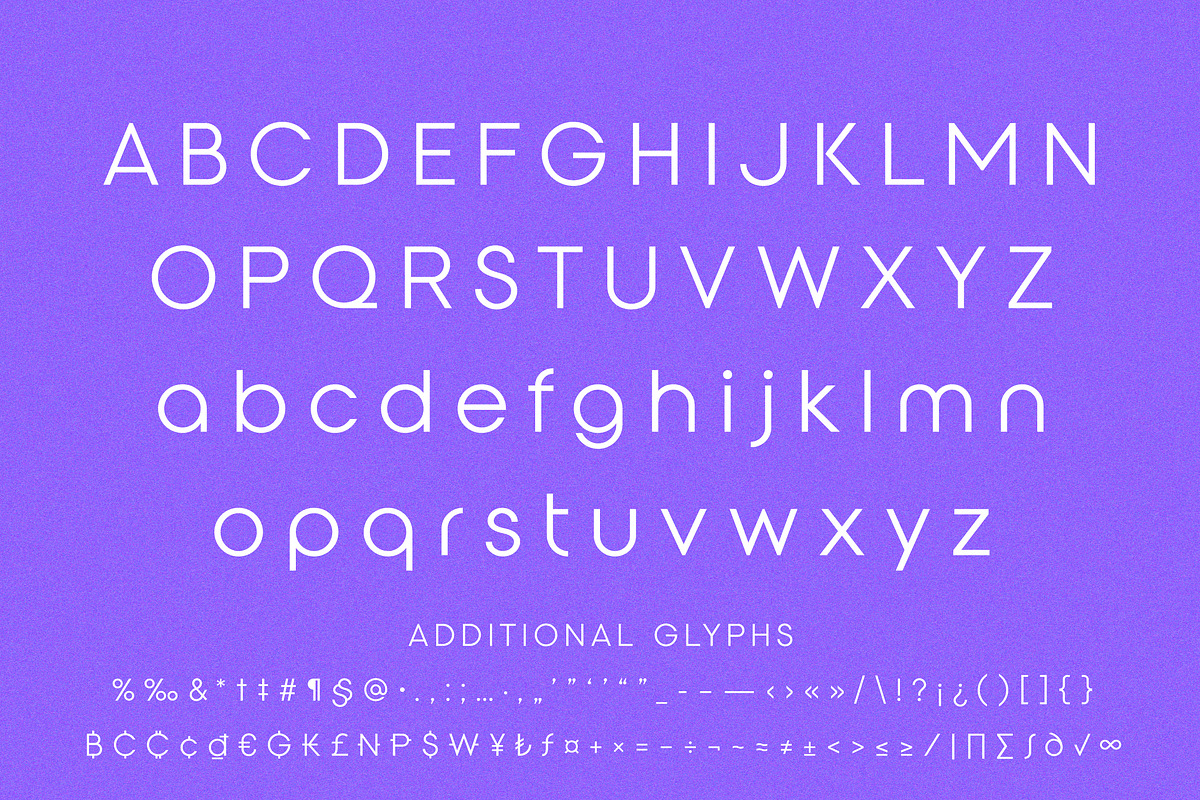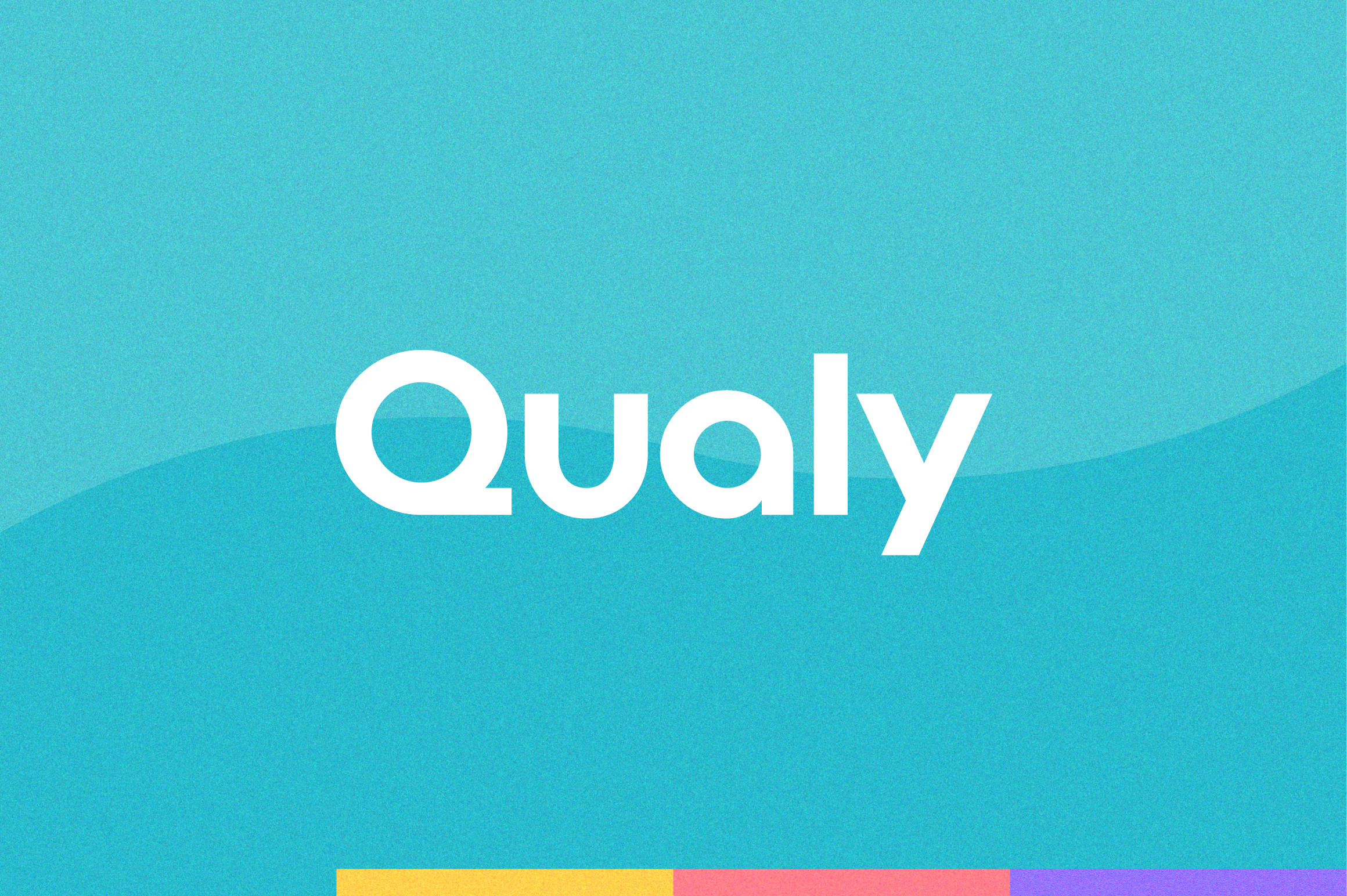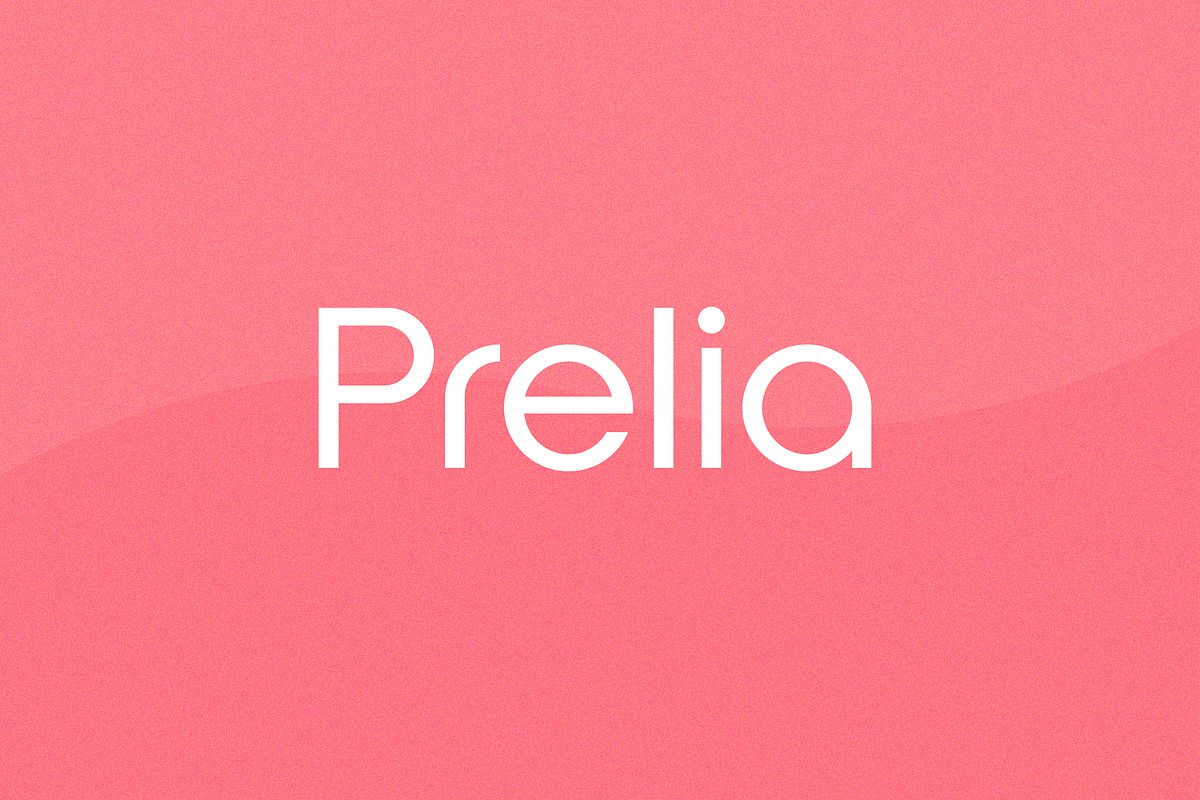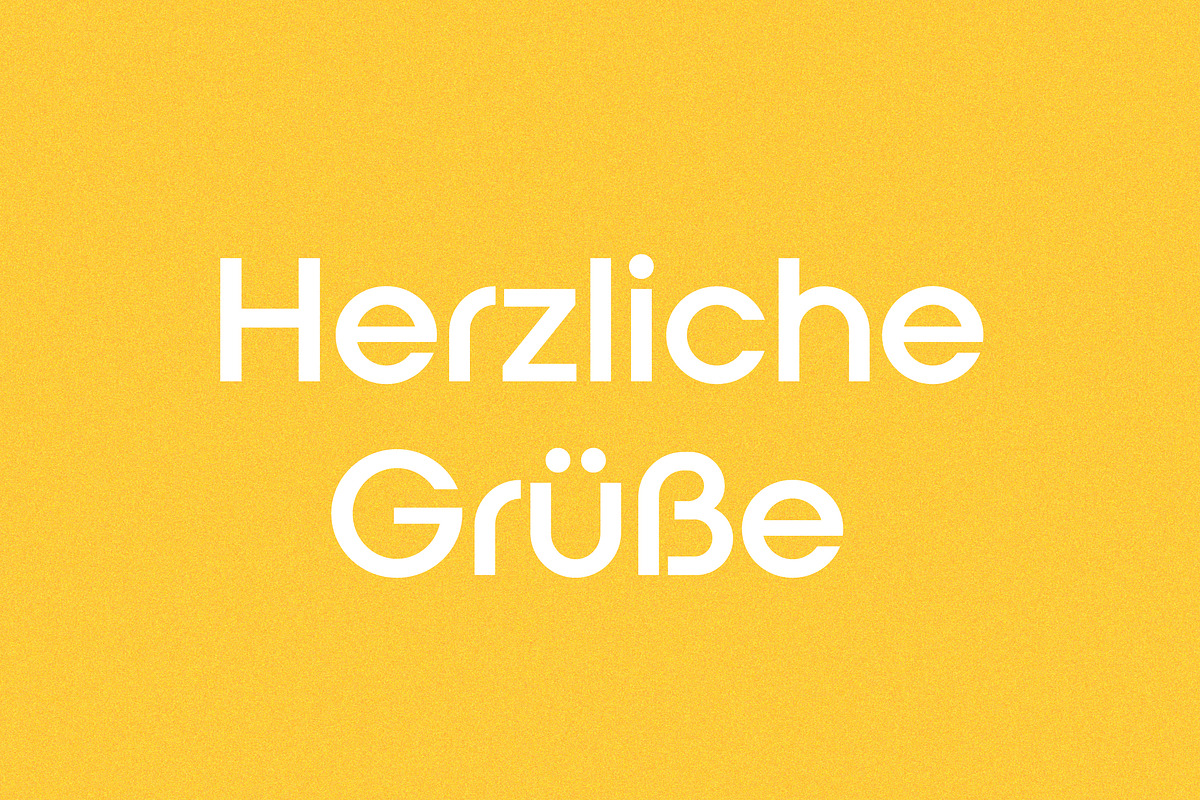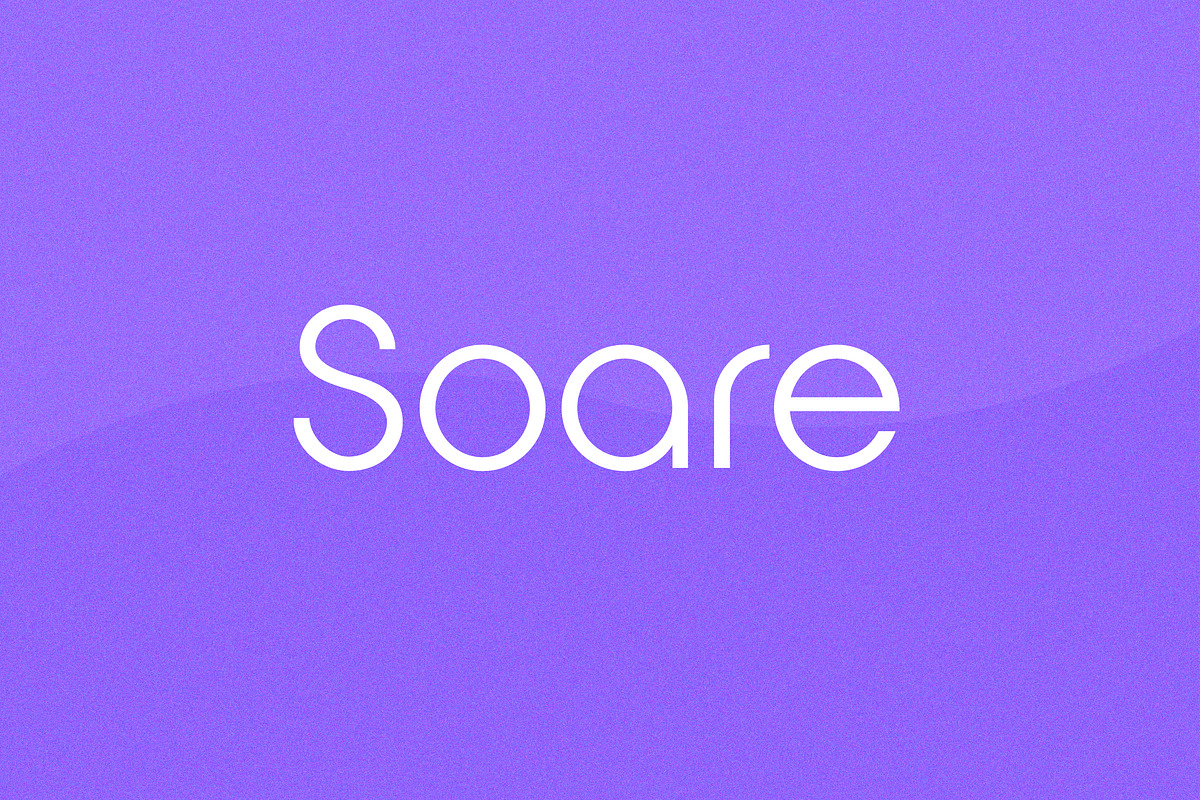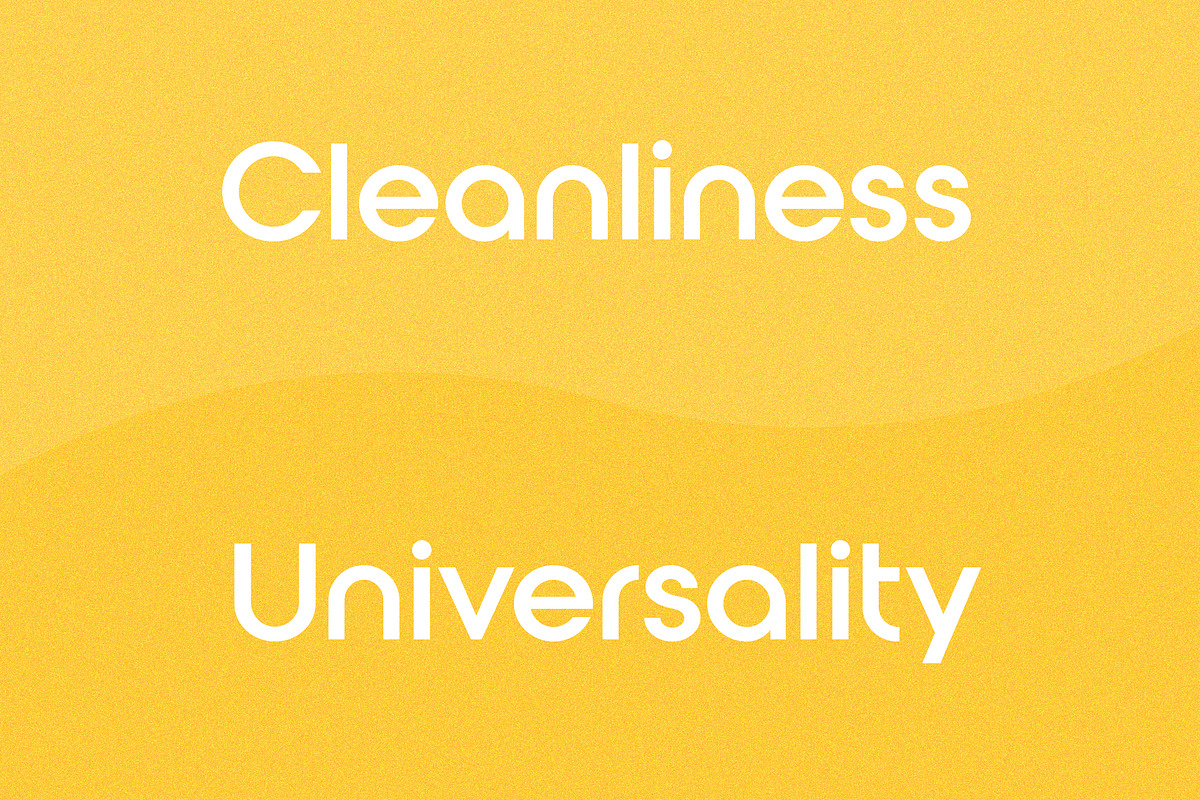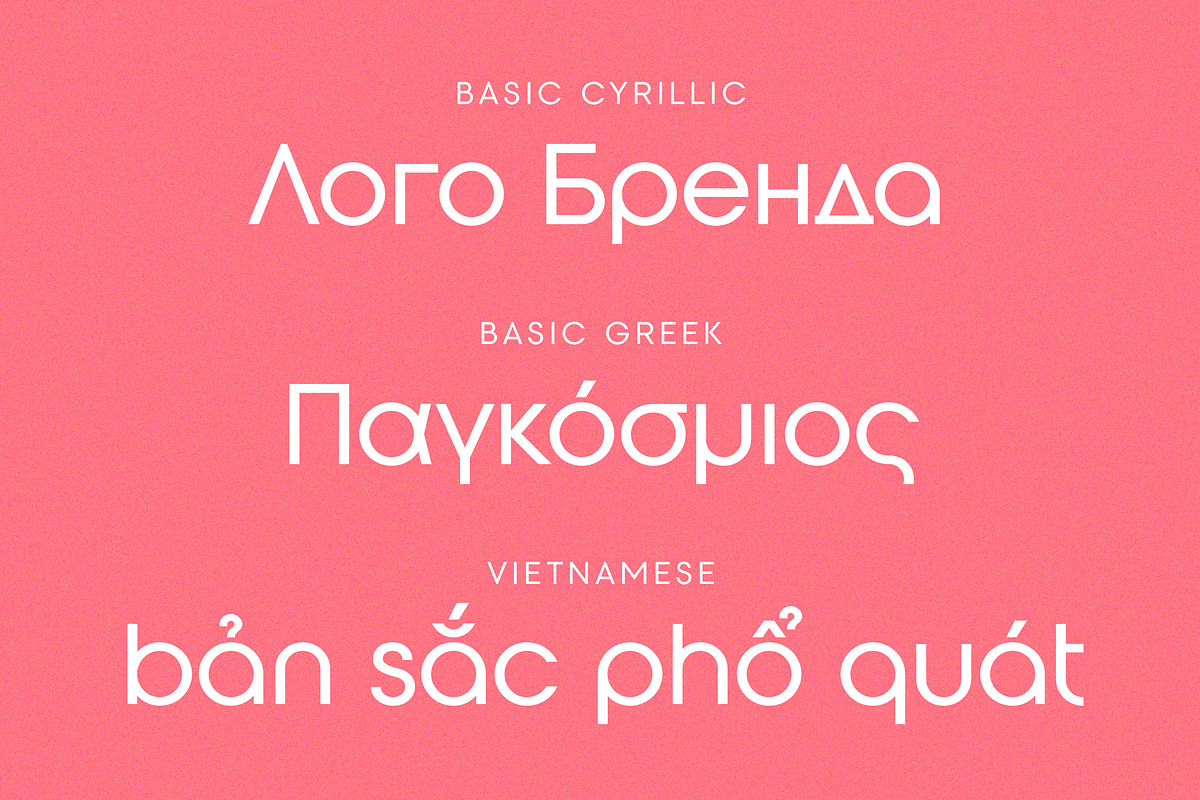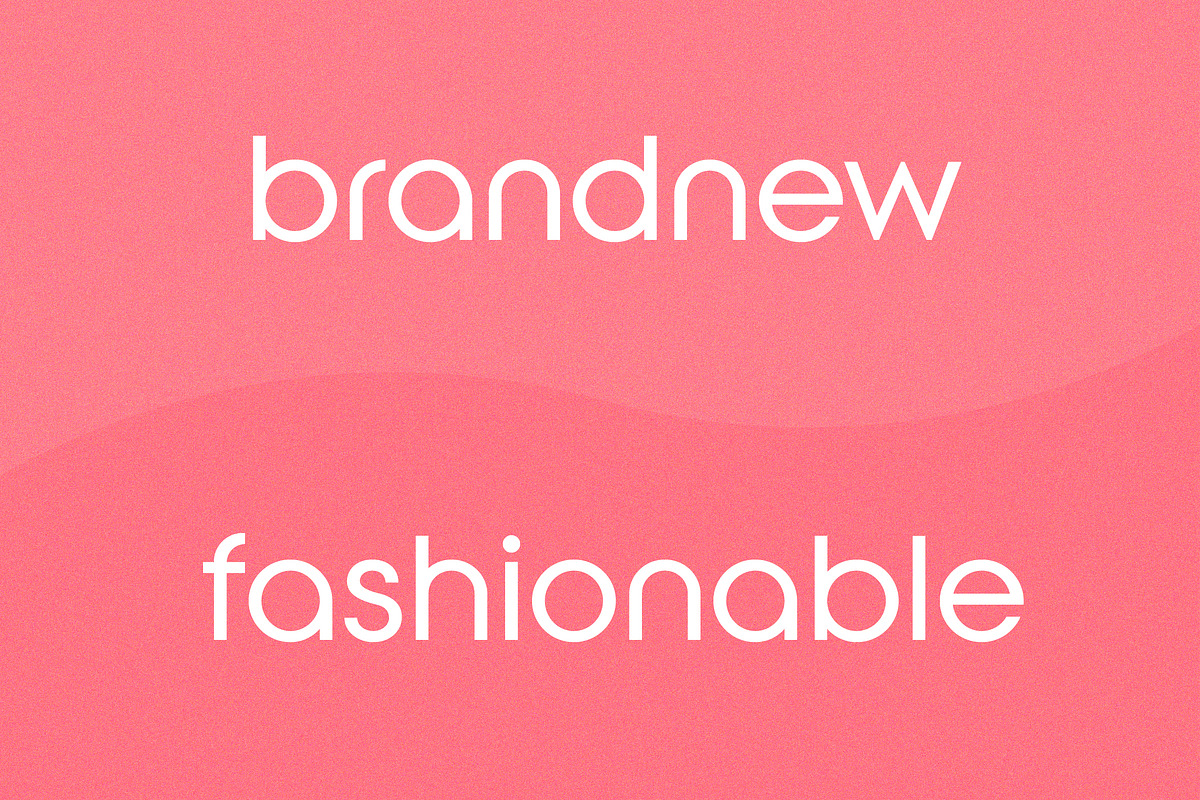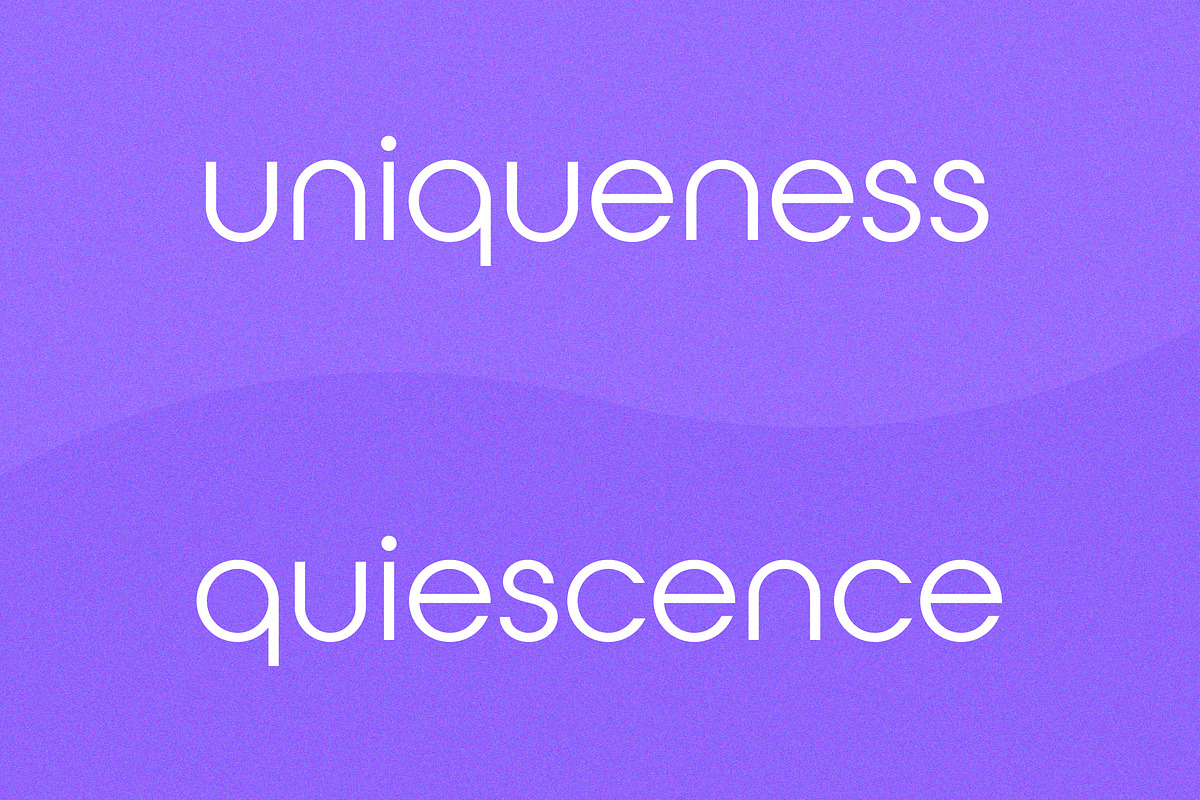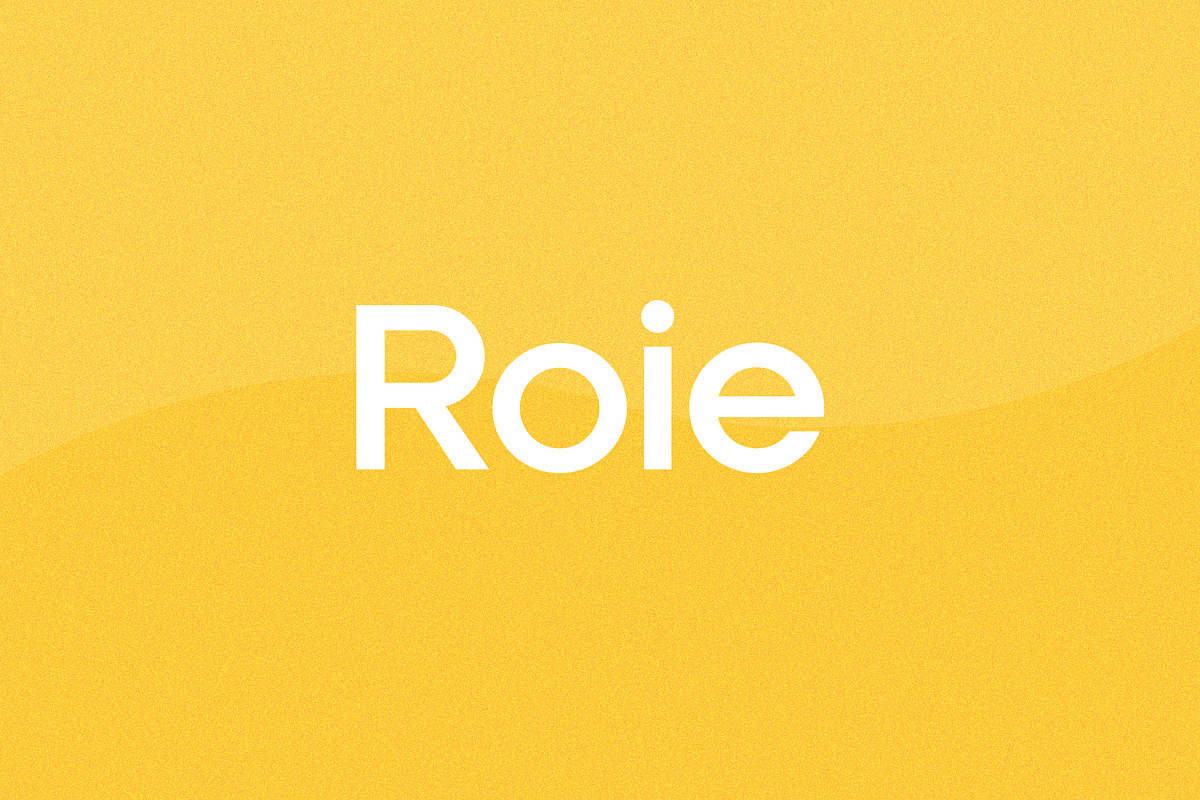
Qualy Logo Font Collection
Qauly Logo Font Collection is a special font set for your logo & branding.
Each font has its own name & concept for its individuality, but can be a weight variation.
The main font, Qualy is the bestseller logo font since 2018, being used at parsd.com etc.
673 Glyphs & 230 Languages: Extensive Latin / Cyrillic / Greek / Vietnamese